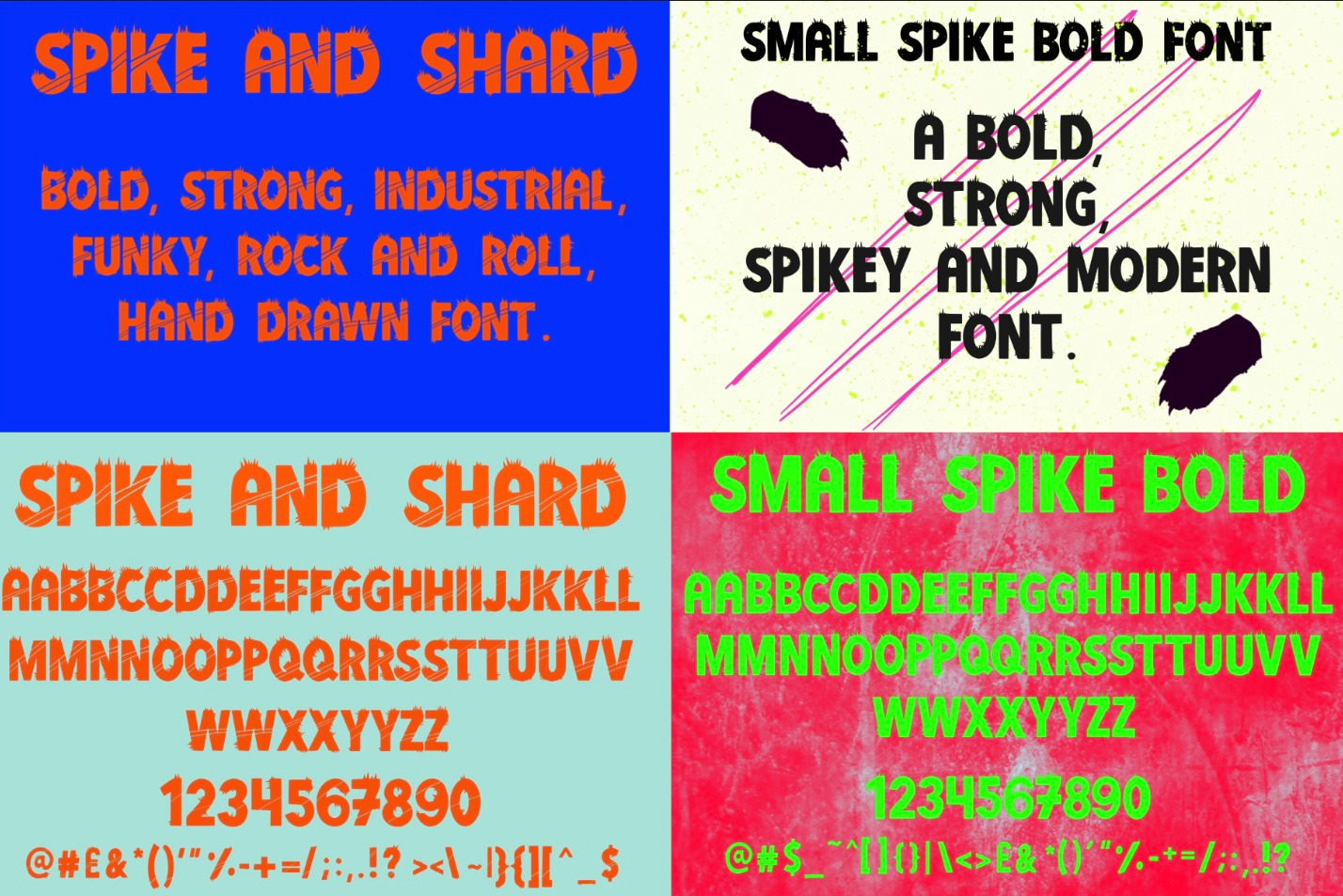
Spike and shard & small spikey font
The two spikey fonts in one discounted bundle! Studded like a punky leather jacket. Enjoy. Any problems please contact me and I’ll do my best to help. Thanks for your support.